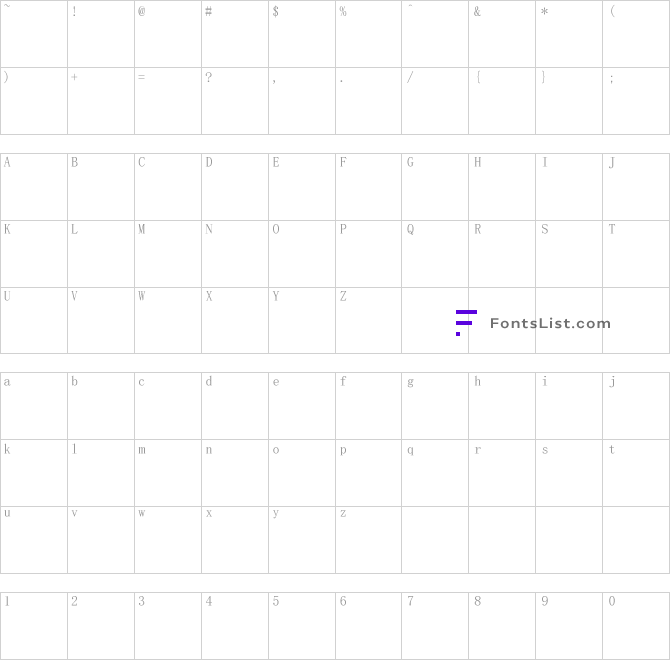
aosvalentine.ttf is a very beautiful artistic font, aosvalentine.ttf is widely used in the design and printing of various books and pictures,aosvalentine.ttf has a strong visual impact,aosvalentine.ttf is a commonly used font in newspapers, magazines and books, and is used in posters, e-commerce Poster design, store design, logo design, font design and other fields.aosvalentine.